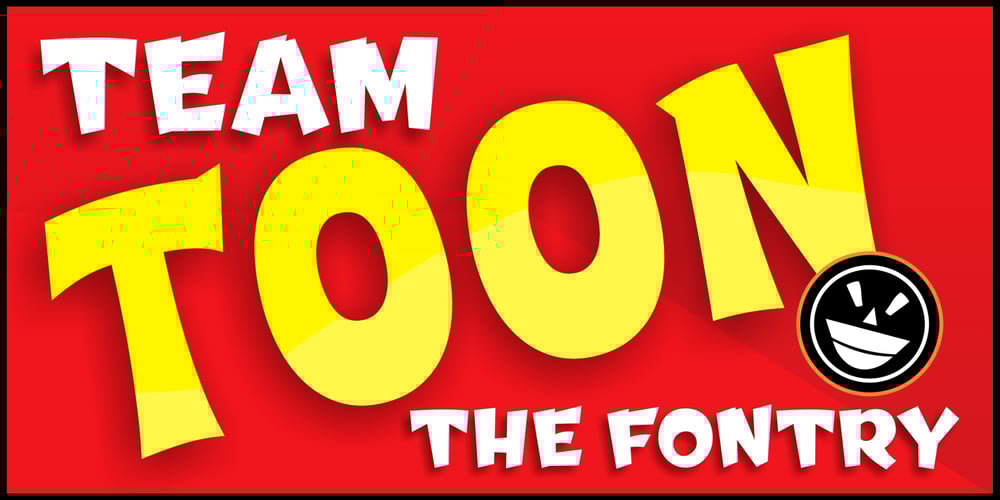
SCRIPT1 Team Toon Font Family was designed by Michael Gene Adkins, James L. Stirling and published by The Fontry. SCRIPT1 Team Toon contains 4 styles and family package options. Let’s hear a cheer for good, old fashioned cartoon casual fonts, two of them in fact. Team Spirit and Toon Casual are definitely not short on attitude. They’re full of pep and spirit and lots of big fun shapes designed to get your team motivated.